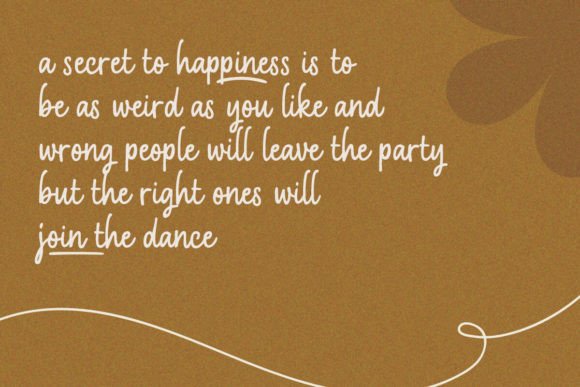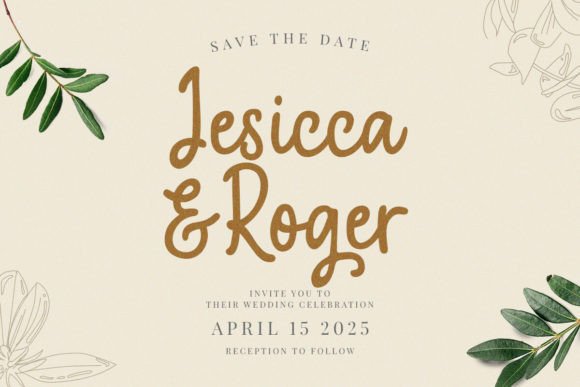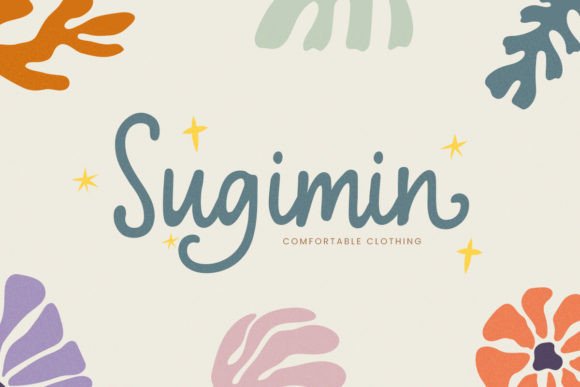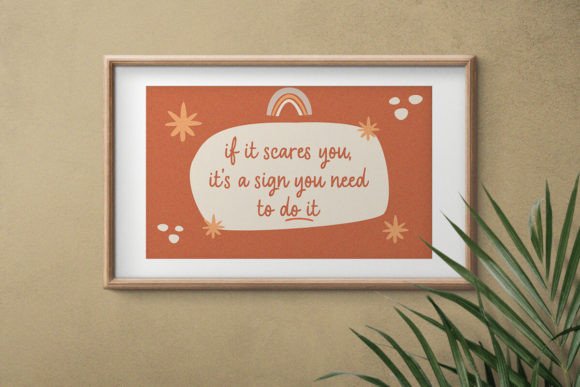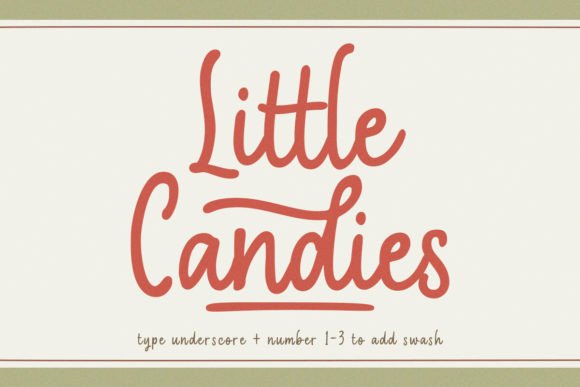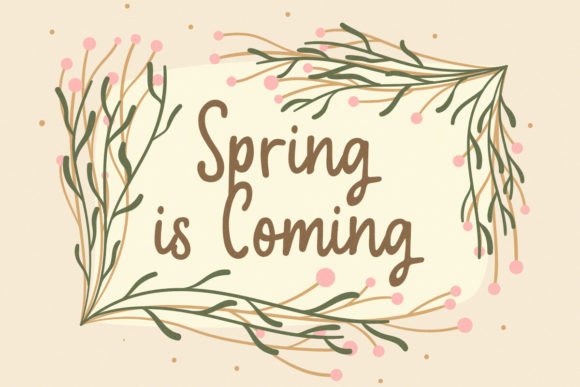
Baskernite Font: Elevate Your Design with Organic Handwriting Style
In the world of typography, fonts play a crucial role in conveying the tone and personality of a brand or design. Among the numerous font styles available, Baskernite stands out as a unique and captivating monoline handwriting font. Its organic flow and natural appearance make it an excellent choice for designers and crafters looking to add a personal touch to their work.
What is Baskernite Font?
Baskernite is a monoline handwriting font that boasts an organic flow, setting it apart from traditional typing fonts. Its natural, hand-written appearance gives it a distinctive charm that can elevate a wide range of design projects. Whether you’re working on a logo, invitation, or packaging, Baskernite’s unique character can add a touch of elegance and sophistication.
Characteristics of Baskernite Font
Baskernite’s monoline handwriting style is characterized by its:
• Organic flow: Baskernite’s letters and words flow smoothly into each other, creating a natural and effortless appearance.
• Monoline construction: The font’s monoline design gives it a sense of simplicity and elegance.
• Handwritten feel: Baskernite’s font style mimics natural handwriting, making it perfect for designs that require a personal touch.
Use Cases for Baskernite Font
Baskernite’s versatility makes it suitable for a wide range of design applications, including:
• Logos: Create a unique and memorable logo that stands out from the crowd with Baskernite’s distinctive handwriting style.
• Invitations: Add a touch of elegance to your invitations, whether it’s for a wedding, birthday, or formal event.
• Labels: Use Baskernite to create eye-catching labels for products, gifts, or other applications.
• Magazines and books: Baskernite’s font style is perfect for article titles, headings, or quotes that require a touch of personality.
• Greeting and wedding cards: Create beautiful and heartfelt cards with Baskernite’s organic handwriting style.
• Packaging: Elevate your product packaging with Baskernite’s unique and eye-catching font style.
• Fashion and makeup: Use Baskernite to create stunning branding and advertising materials for your fashion or makeup business.
• Stationery: Add a touch of personality to your stationery, whether it’s for personal or professional use.
• Novels and writing: Baskernite’s font style is perfect for authors and writers looking to add a touch of elegance to their work.
• Advertising: Use Baskernite to create eye-catching and memorable advertisements that stand out from the crowd.
Why Choose Baskernite Font?
Baskernite’s unique characteristics and versatility make it an excellent choice for designers and crafters looking to elevate their work. Here are some reasons why you should consider using Baskernite:
• Unique and distinctive: Baskernite’s handwriting style sets it apart from traditional fonts, making it perfect for designers looking to create something unique.
• Elegant and sophisticated: Baskernite’s monoline construction and organic flow give it an air of elegance and sophistication.
• Versatile: Baskernite can be used for a wide range of design applications, from logos and invitations to packaging and advertising.
• Easy to read: Despite its unique style, Baskernite is easy to read and understand, making it perfect for body text and headings.
Baskernite font is a unique and captivating monoline handwriting font that can elevate a wide range of design projects. Its organic flow, natural appearance, and versatility make it an excellent choice for designers and crafters looking to add a personal touch to their work. Whether you’re working on a logo, invitation, or packaging, Baskernite’s distinctive character can help you create stunning and memorable designs.